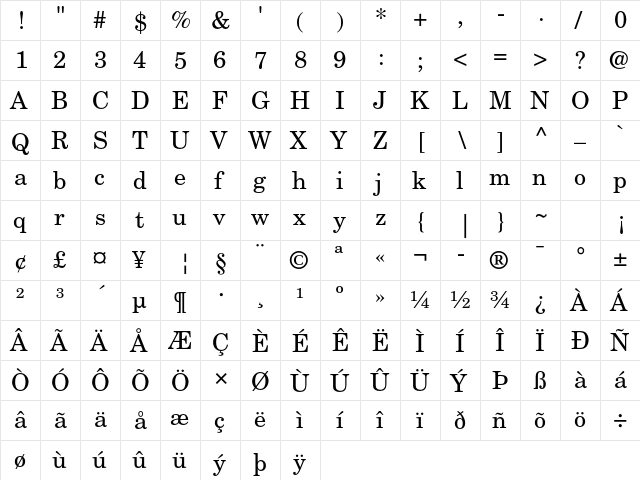
New Century Schoolbook LT Std Roman
| Designer | Morris Fuller Benton |
Design Context for New Century Schoolbook LT Std Typeface
New Century Schoolbook LT Std takes a measured approach to typography — its balanced proportions and neutral character make it a reliable workhorse for both digital and print work. Its slender proportions lend an understated elegance to any composition.